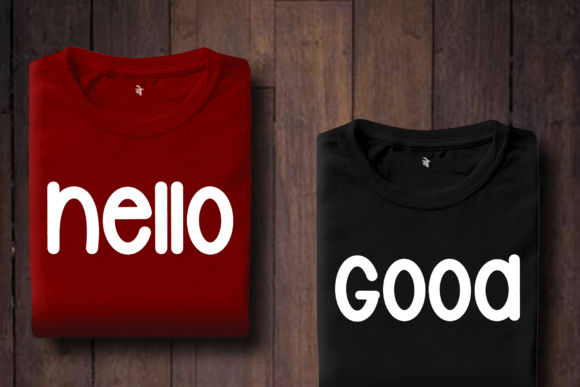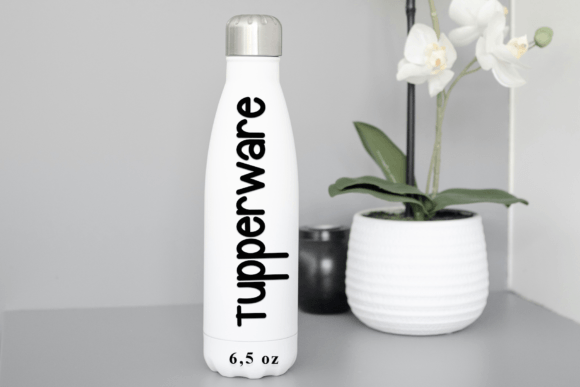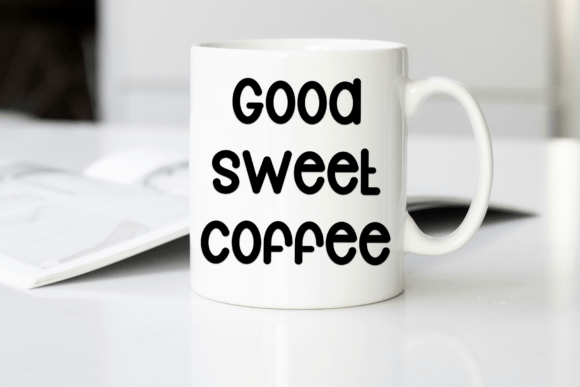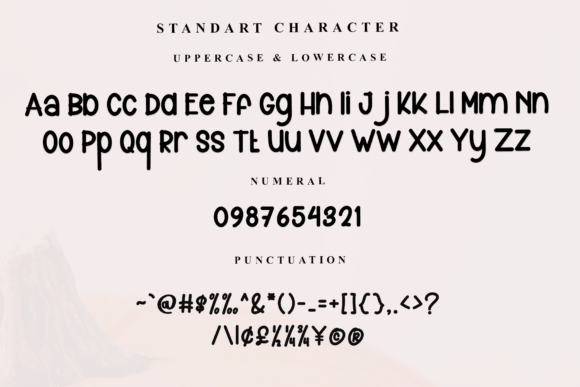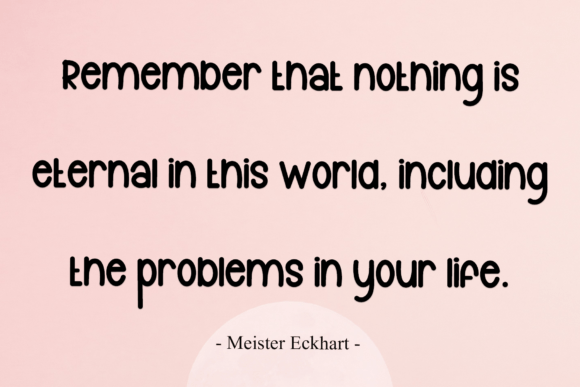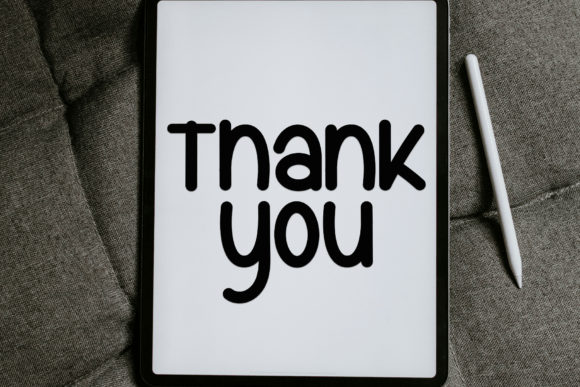
Getting into the Holiday Spirit with the Perfect Font
There’s nothing quite like the feeling of unwrapping a holiday card or gift, surrounded by loved ones, and feeling the warmth of the season. As designers, we strive to capture that same magic in our work, and one of the key elements that can make all the difference is the right font.
Enter the Drinking Font, a festive and happy typeface that embodies the spirit of the holiday season. With its decorative elements and unique flair, it adds a touch of charm to your designs, making it perfect for greeting cards, gift labels, and holiday-themed projects. This font is not just a pretty face – it’s also PUA coded, making it easy to access all the amazing glyphs and ligatures.
Key Features of “Drinking Font”
- Unique Characteristics: The font features a unique design that is specifically tailored to convey a sense of fun and playfulness, making it ideal for use in social media, advertising, and other creative applications.
Designer Review: Drinking Font
Overall, I think the Drinking Font is an interesting take on a sans-serif font. There are some great aspects that make it stand out, but also some limitations that might hold it back.
- ✨ Unique letterforms that evoke a sense of playfulness and informality, perfect for casual or creative projects.
- ✨ Well-executed OpenType features, such as ligatures and swashes, that add a touch of sophistication.
- ✨ Clean and simple design that makes it easy to read and understand.
- ⚠️ Limited character set and language support, making it less suitable for complex or professional projects.
- ⚠️ Some letterforms feel a bit inconsistent or irregular, which might be jarring for readers.
- ⚠️ No clear guidelines or best practices for using the font’s OpenType features, which can make it tricky to use effectively.
Overall Impression:
The Drinking Font is a solid choice for projects that need a bit of personality and flair. While it has some limitations, its unique letterforms and well-executed OpenType features make it a great option for designers who want to add some visual interest to their work. With a bit of guidance and planning, the Drinking Font can be a valuable addition to any designer’s toolkit.
Getting the Most Out of It
To get the most out of the Drinking Font, try the following:
- Use it for creative and humorous designs, such as memes and social media posts.
- Combine it with other fonts for a unique and eye-catching look.
- Experiment with different colors and sizes to add emphasis and visual interest.
The Drinking Font is commonly used for:
- Beer and wine labels.
- Party invitations and decorations.
- Social media posts and memes about drinking and nightlife.
Alternatives to “Drinking Font” for Designers
1. Beer Bottle Font
The Beer Bottle Font is a playful, hand-drawn font that resembles a beer bottle label. It’s perfect for designs related to beer, brewing, or nightlife. Compared to Drinking Font, Beer Bottle Font has a more rustic feel and is ideal for casual, social media, or advertising designs.
2. Cocktail Font
The Cocktail Font is a sophisticated, elegant font that evokes the feeling of a high-end cocktail bar. It’s suitable for designs related to luxury, fine dining, or upscale events. Unlike Drinking Font, Cocktail Font has a more refined look and is ideal for corporate, branding, or editorial designs.